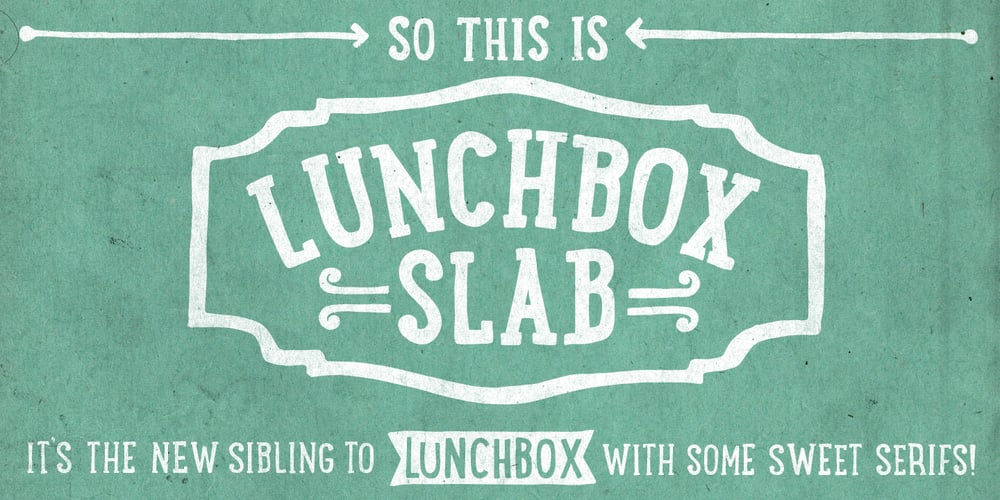
LunchBox Slab
LunchBox Slab font
LunchBox Slab Font Family was designed by Kimmy Kirkwood and published by Kimmy Design. LunchBox Slab contains 4 styles and family package options. LunchBox Slab is the pair of LunchBox, a uniquely hand-drawn typeface that gives numerous customizable options and a fully authentic look. The serifs in LunchBox Slab are simple blocks, with bulbous terminals on curved letters, which creates a unique effect. Identical to its pair behind the scenes, LunchBox Slab’s OpenType features allow access to over 1,500 different characters. Contextual alternatives give each letter 4 different character styles, all cycling through each other to ensure that no two letters ever show up together. There is also a custom set of small caps, each with 4 style variations as well. Stylistic alternatives give an extra hand-drawn flourish, loop and slight variation, also with 4 different styles per letter. Discretionary ligatures pertain to both regular all caps LunchBox as well as stylistic alternatives. It gives special letter combinations a unique interaction, giving your design a unique and personalized look without spending hours creating it and outlining your text. Included are also a set of swashes that also have four style variations to both the regular and stylistic alternatives, as well as lowercase letters with ascenders and descenders. All of these options are available in Light, Regular and Bold. LunchBox Slab Ornaments includes nearly 200 different graphics, flourishes, frames, catchwords, text breaks and arrows. If you do not use OpenType but are using a program that includes a full glyph panel, you will be able to manually access each of the style variations you want. Enjoy!